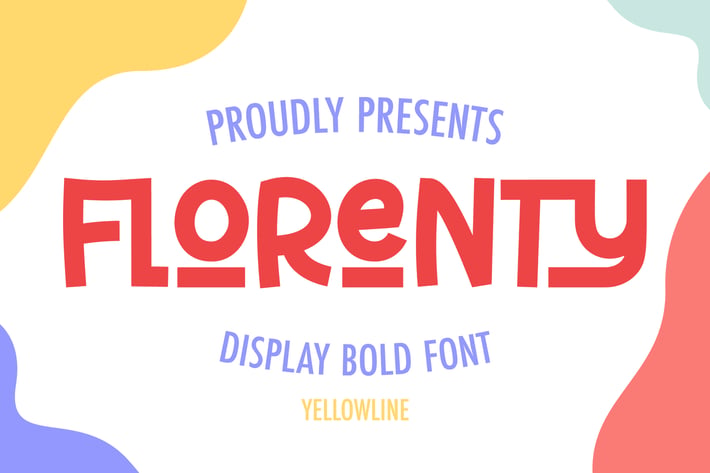
Florenty Display Font
New display bold font named Florenty.
It has been created to make your design more awesome.
Florenty features :
- 2 font styles (solid & outline)
- Number & Punctuation
- Multilingual